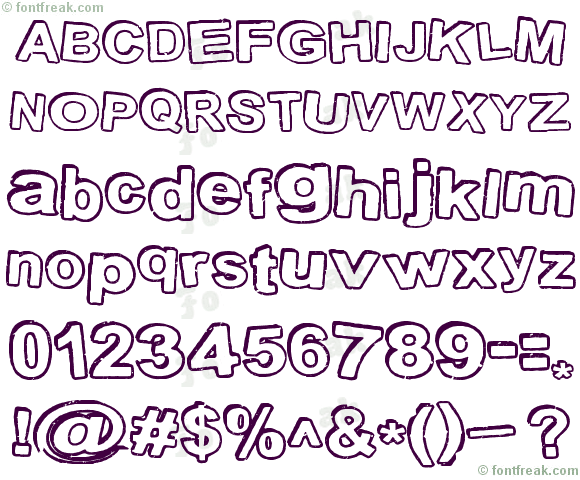
StampInk
StampInk, designed by XEROGRAPHER FONTS in 2015, is a decorative display font that captures the essence of handcrafted artistry. With its bold, uneven strokes and playful character, this font perfectly embodies the charm of a rubber stamp. The visual characteristics of StampInk feature a medium stroke weight and a lack of high contrast, lending it a sturdy yet approachable look. The slightly irregular spacing and varied letterforms enhance its handmade feel, making it suitable for a range of creative applications.
One of the best use cases for the StampInk font is in crafting unique wedding invitations that convey a laid-back, rustic vibe. Its whimsical style can bring an artistic touch to event posters, ensuring they stand out in crowded spaces. Additionally, StampInk is ideal for restaurant menus, where it can add a personal, inviting element to the dining experience. Graphic designers might also find it useful for branding projects, especially for businesses aiming for a fun and friendly image. Content creators can utilize this font for social media graphics, ensuring their posts capture attention with a distinctive flair.
What sets the StampInk font apart is its ability to combine functionality with charm. Its unique, stamped appearance not only makes a statement but also resonates with audiences seeking authenticity in design. Whether you’re working on a project that requires a touch of whimsy or simply want to express a playful aesthetic, StampInk is an excellent choice that will elevate your creative endeavors.